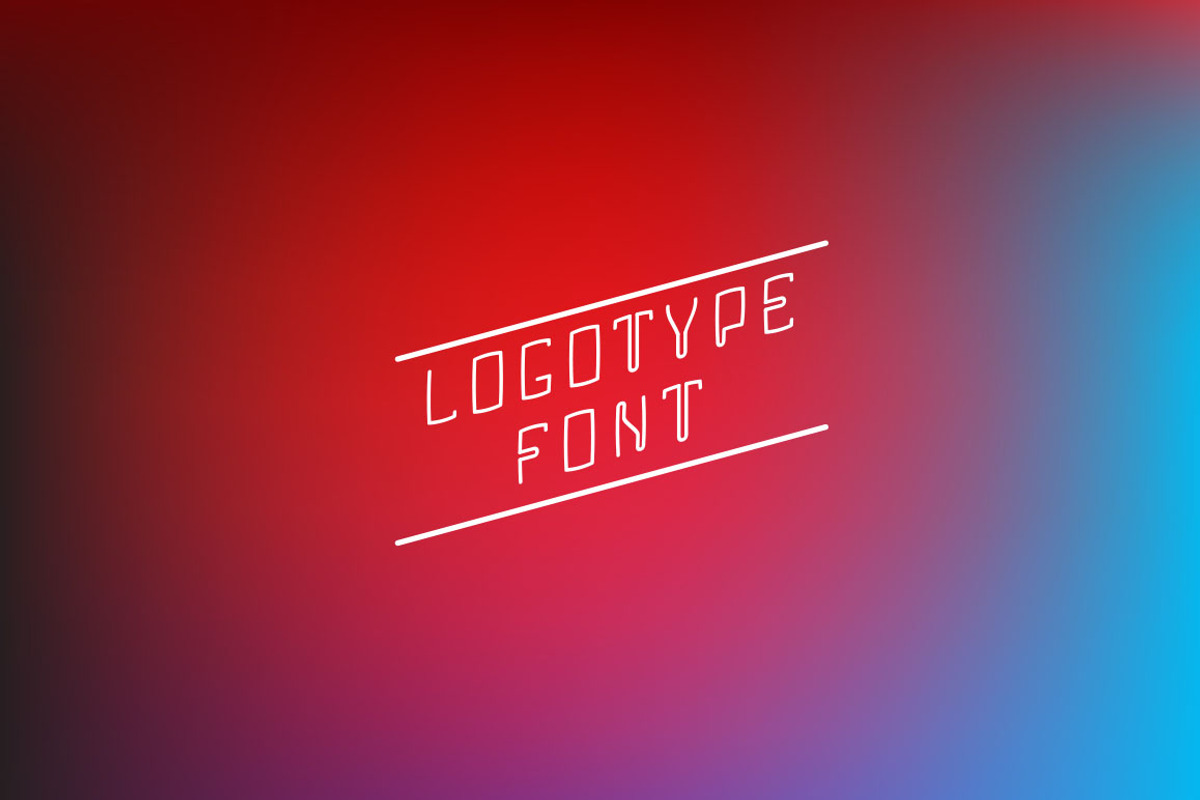
Letters for logotype font
Letters for logotype font by iconstock is a font selected for branding, posters, packaging, typography.
Why Letters for logotype font is worth a look
Letters for logotype font by iconstock fits naturally into Branding, posters, packaging, typography.